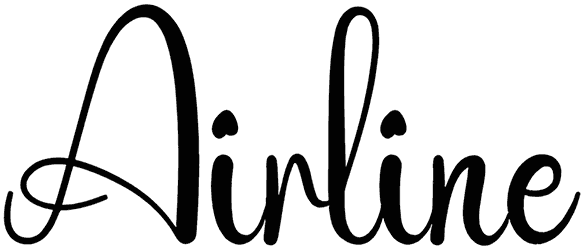
Airline Font
It might be a perfect choice for your Christmas postcard or other delightful designs. What this unique calligraphy font can do is give a stylish and luxurious visual to your words. The smooth cursive form of the Airline font’s letters is going to make your design natural and salient.
this is a sweet and friendly handwritten display font. Cute and fun, this font is ideal for writing wedding invitations, cards, or any other design that might need a playful touch!